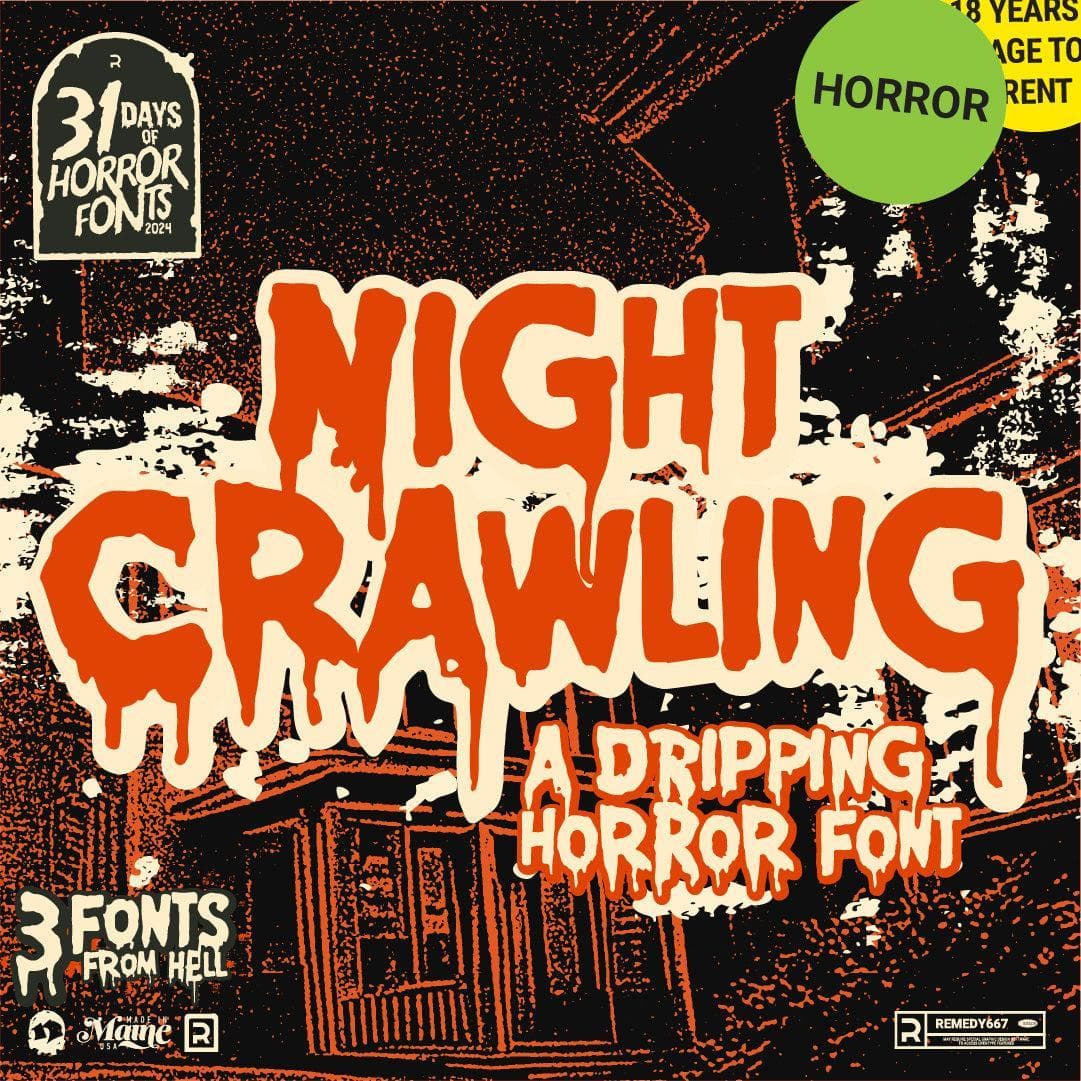
<p>Do you hear that, boils and ghouls? That spine-tingling sound of doom creeping closer? It’s <strong>Night Crawling</strong>, terrifying typeface straight out of the blood-soaked reels of 1970s and ’80s slasher classics! Whether you’re designing a midnight movie poster, carving up killer apparel, or summoning frightful logos, <strong>Night Crawling</strong> will massacre through the mundane and leave a trail of terror.</p> <p>Summoned during 31 Days of Horror Fonts 2024, <strong>Night Crawling</strong> is dripping with the raw energy and grindhouse charm of vintage slasher films. Let your designs scream for attention, while this sinister typeface does the heavy lifting—or chopping!</p>